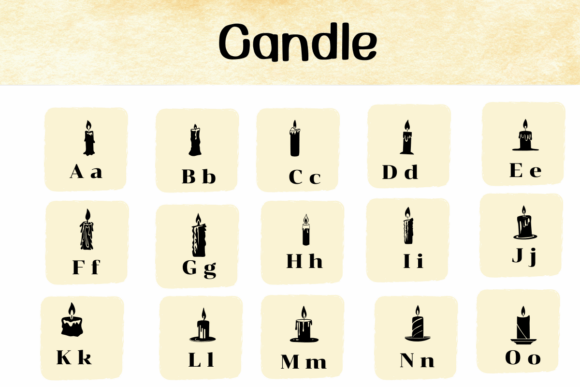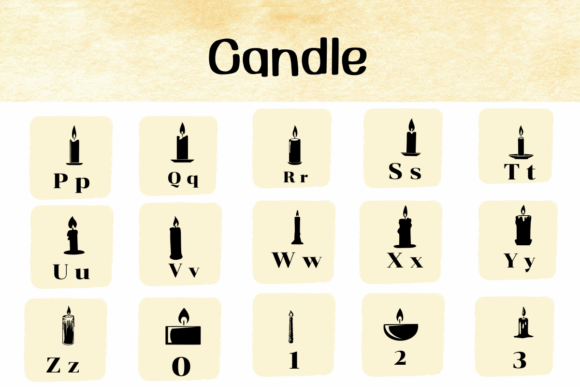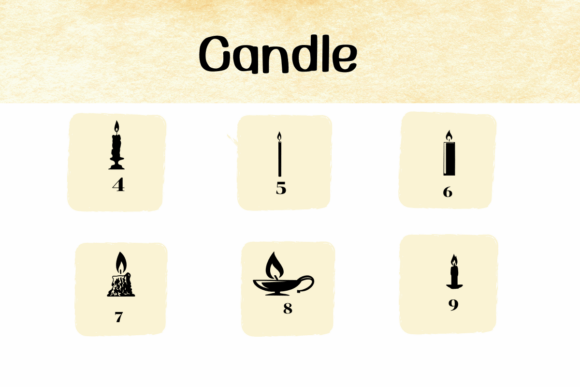
Introduction to Candle Font
Candle is a dingbat font featuring charming designs of candles with glowing flames.
Each character in the font represents a different candle style, perfect for adding a warm, cozy, or festive touch to your projects .
Candle Font offers exceptional quality and versatility, making it a valuable addition to your design toolkit. Whether you’re creating for personal projects or commercial use, Candle Font delivers professional results.